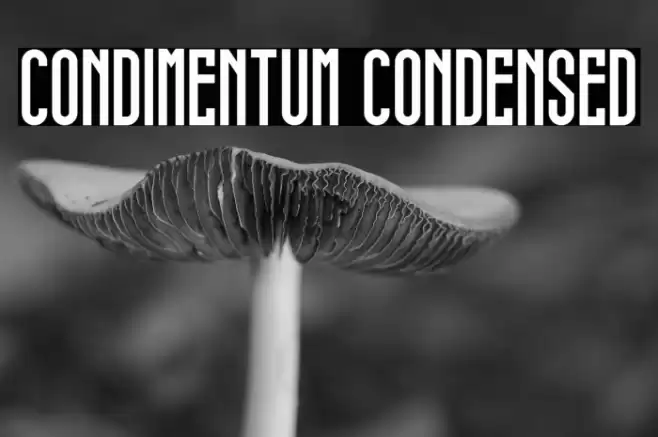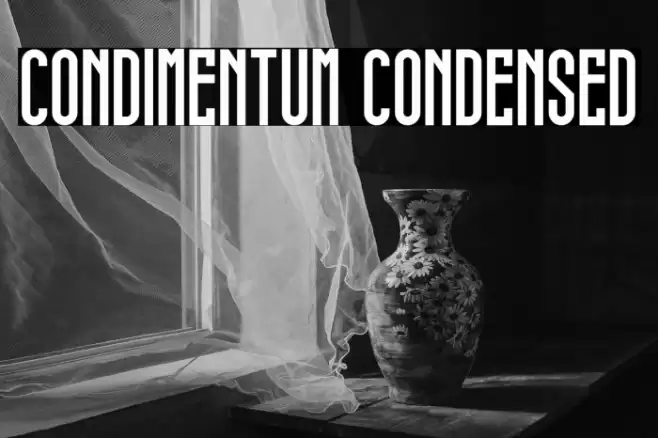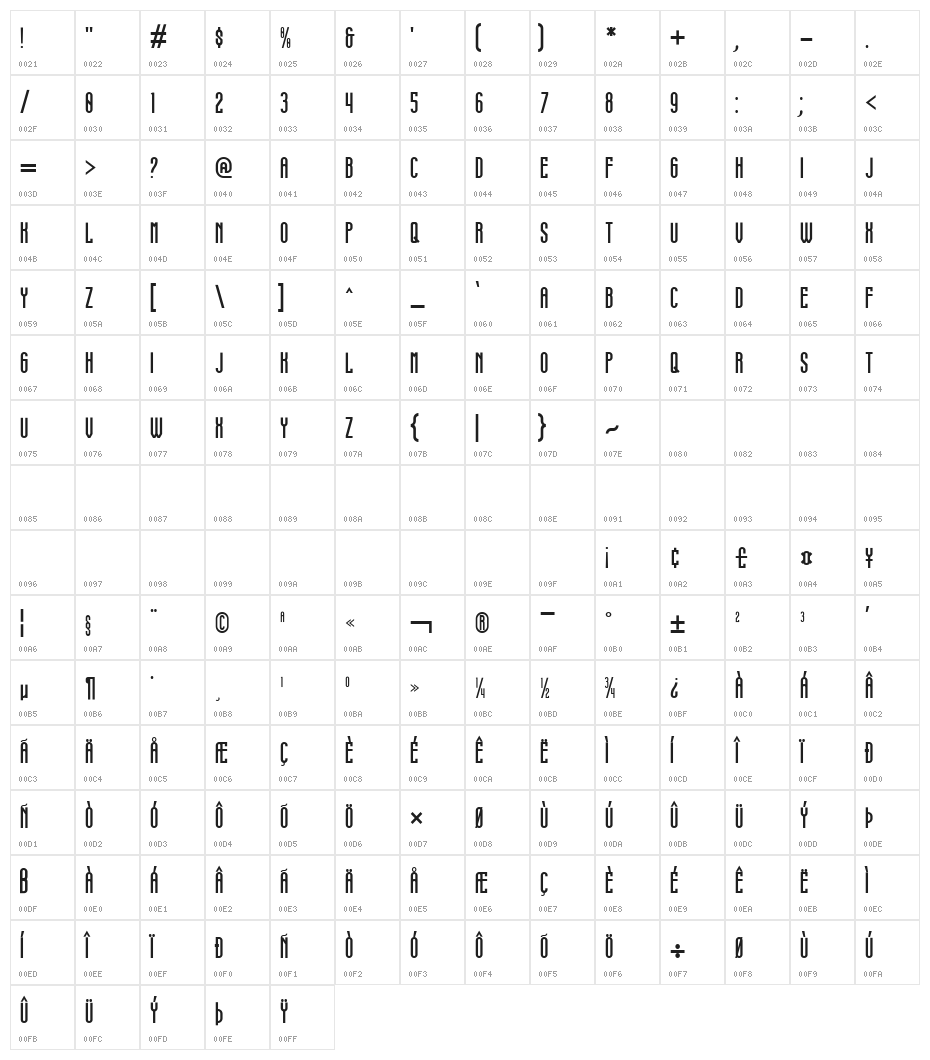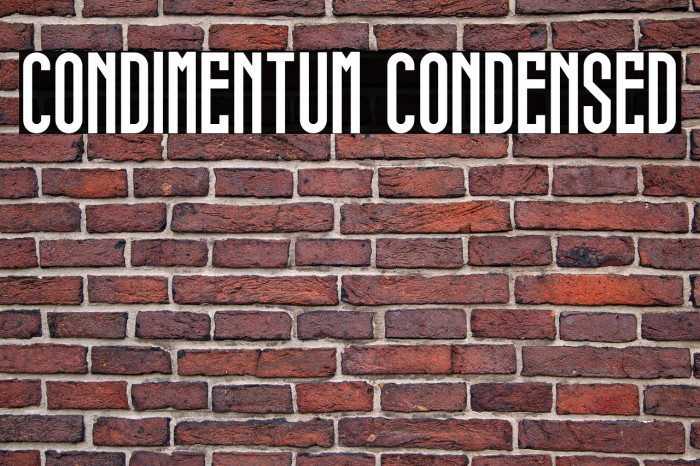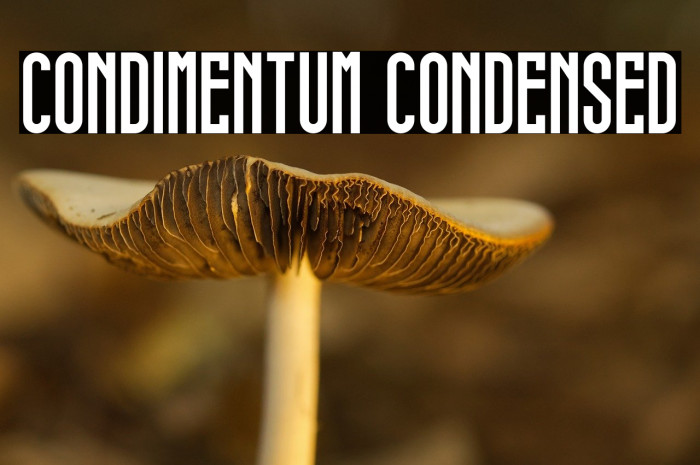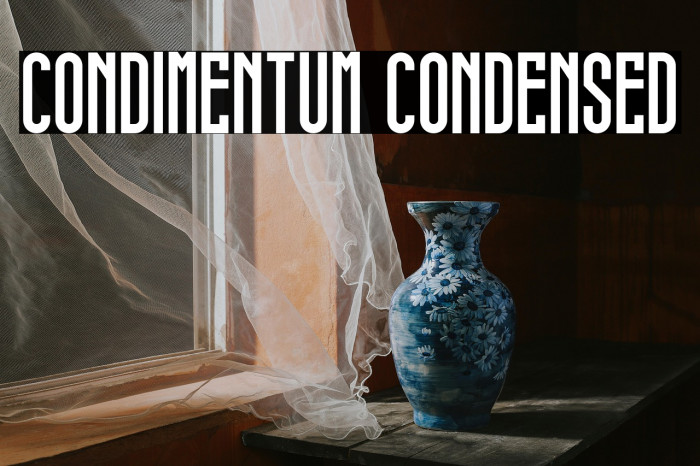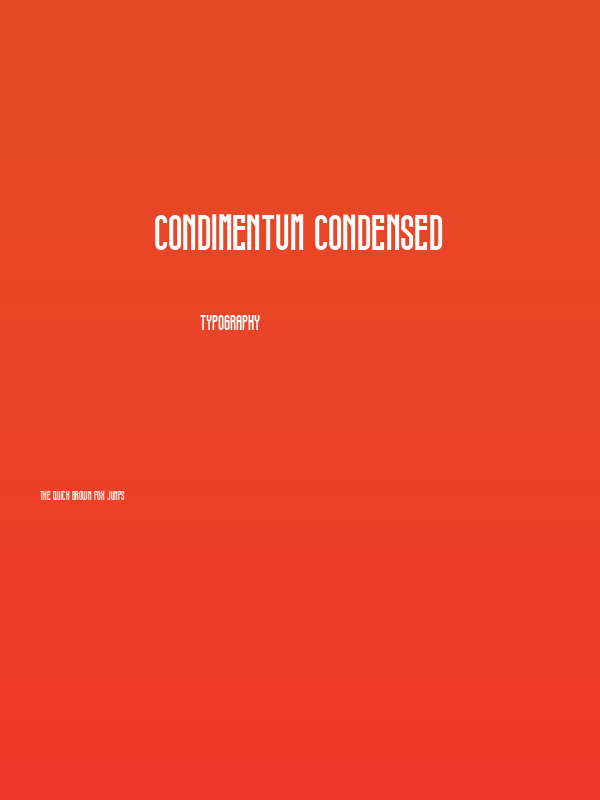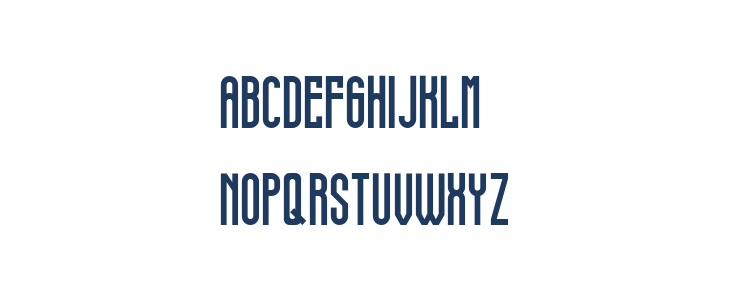
condimentum condensed Font
condimentum condensed Description
This font features a bold and condensed style, characterized by its tall, narrow letterforms that convey a sense of strength and modernity. The uppercase letters are particularly striking, with uniform stroke widths that create a cohesive and impactful appearance. The numerals and special characters maintain this boldness, ensuring consistency across all glyphs. The overall design is clean and geometric, making it suitable for projects that require a strong visual presence. Its condensed nature allows for efficient use of space, making it ideal for headlines and titles where impact is essential.
A bold, condensed font with a modern and geometric style from Regular fonts.
- Proposed Projects: Ideal for use in posters, headlines, branding, and any design requiring a strong, modern aesthetic.
- Character Spacing: Tight